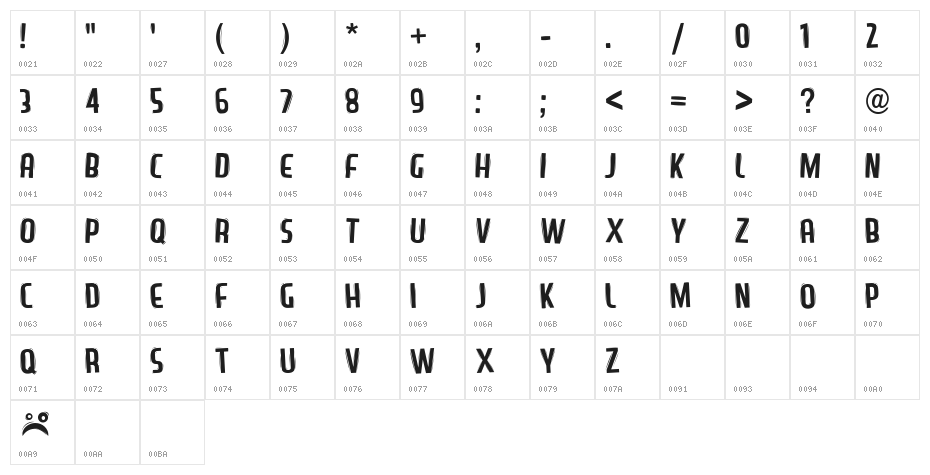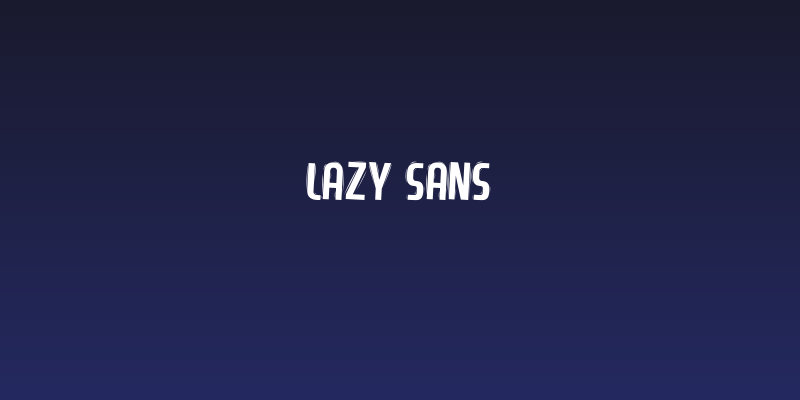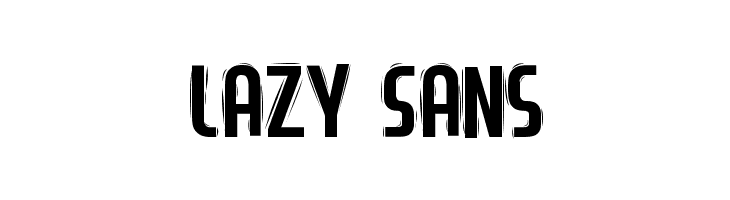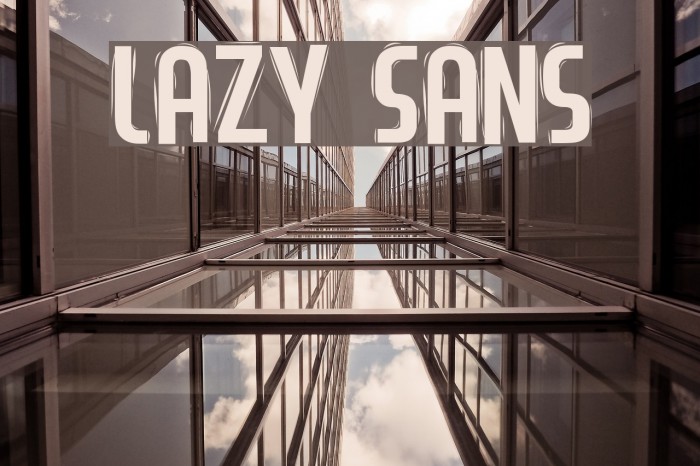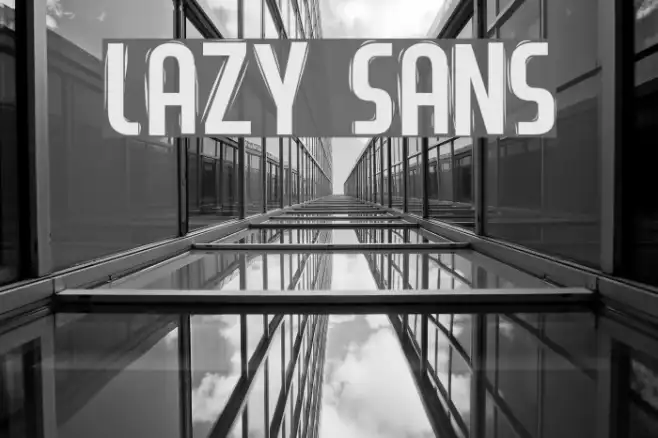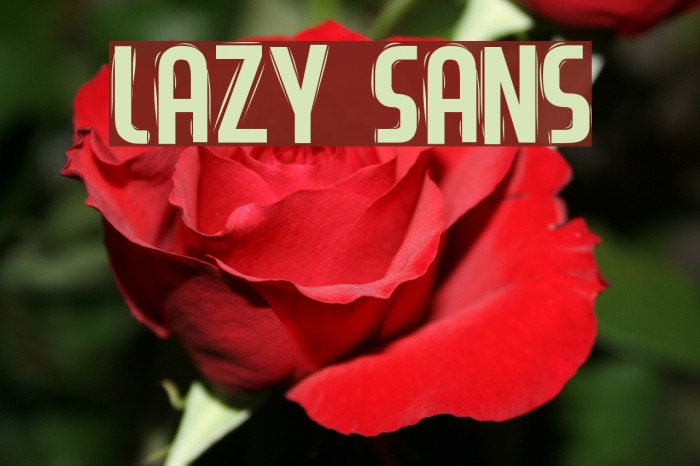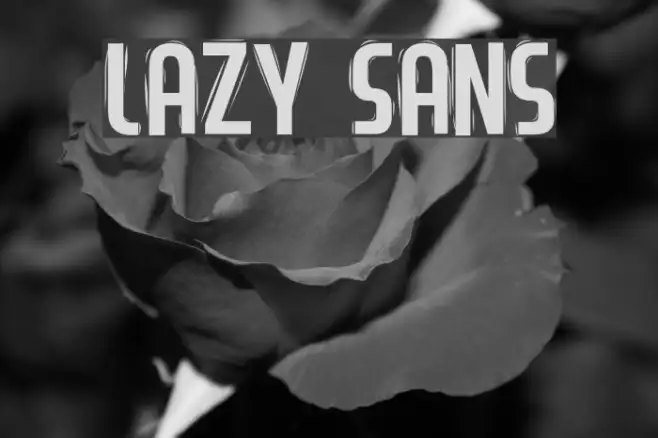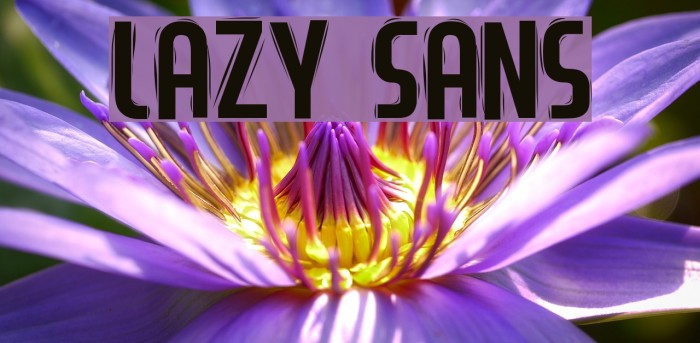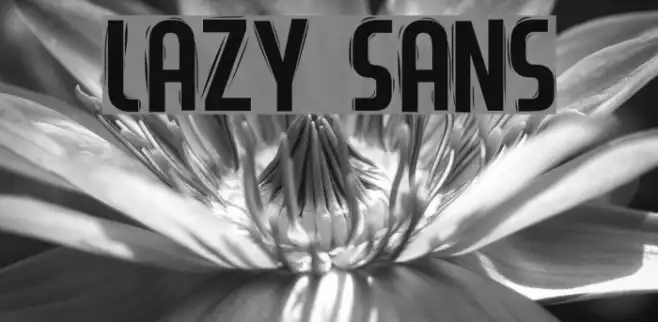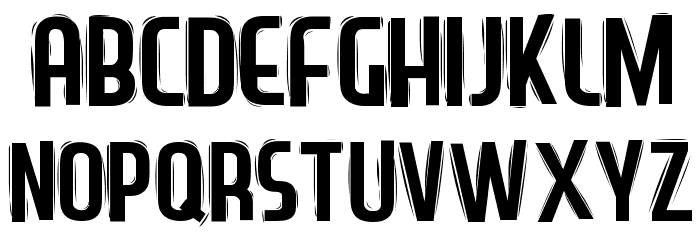
Lazy Sans Font
Lazy Sans Description
This font features a bold and dynamic style with a distinct modern flair. The characters are designed with a strong emphasis on vertical lines, creating a sense of movement and energy. The strokes are thick and consistent, giving the font a robust appearance. The edges are slightly rounded, adding a touch of softness to the otherwise bold design. The spacing between characters is tight, which enhances the compact and impactful look of the text. This font is well-suited for projects that require a strong visual presence and a contemporary aesthetic.
| Proposed Projects | Ideal for headlines, posters, branding, and advertising materials that need a striking and modern look. |